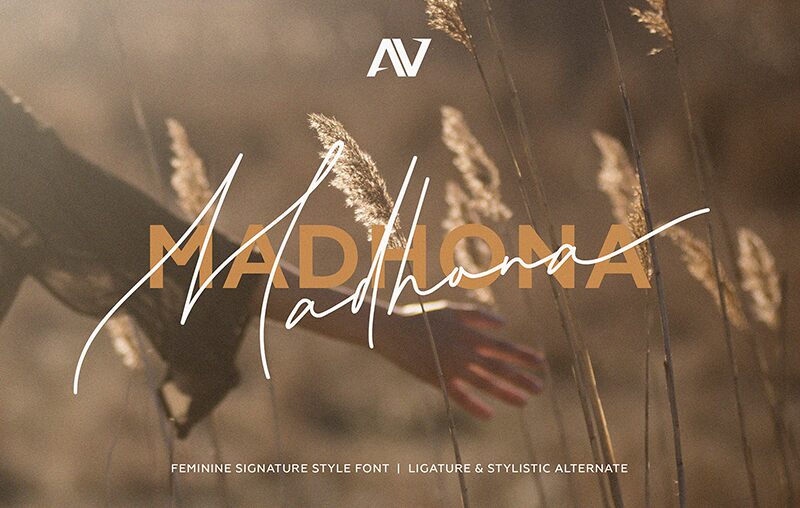
Madhona, the ultra-light handwritten signature font designed by Gede Sugiantara, exudes elegance and sophistication. With its delicate strokes and curves, Madhona is perfect for projects that require a personal touch, such as wedding invitations, branding materials for luxury brands, or elegant product packaging. Its thin weight adds a touch of refinement to any design while maintaining legibility at smaller sizes. Use Madhona to impress your clients with its unique style and make your projects stand out from the crowd.
Madhona